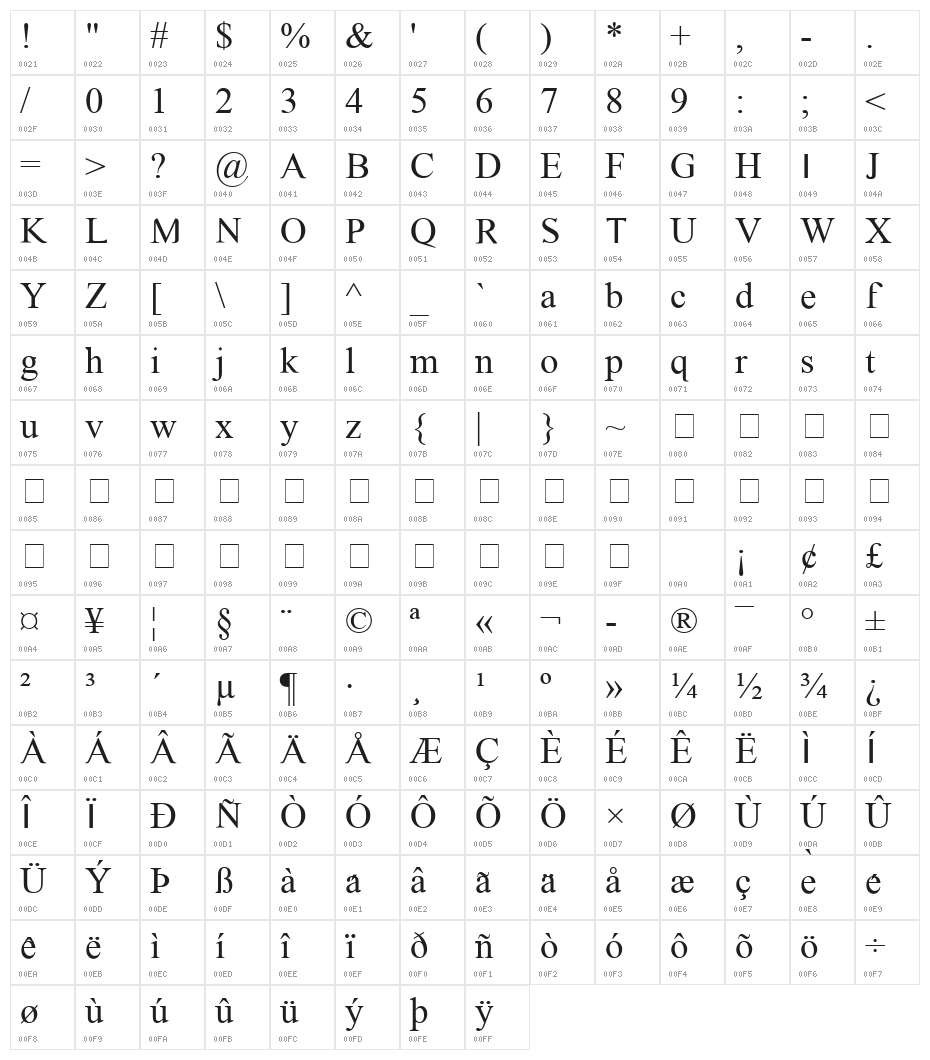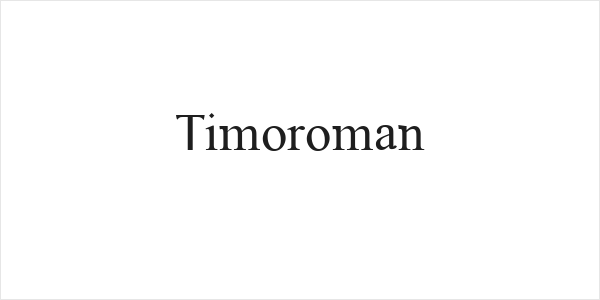
Timoroman Font
Timoroman Description
This font exhibits a classic serif style with elegant, traditional features. The serifs are well-defined and slightly bracketed, giving it a timeless and authoritative appearance. The uppercase letters are tall and stately, while the lowercase letters maintain a balanced and readable form. The numerals are proportionate and align well with the overall design, ensuring clarity and consistency. The special characters are crafted with precision, complementing the font's sophisticated aesthetic. This font is versatile, suitable for both formal and informal contexts, making it an excellent choice for a variety of design projects.